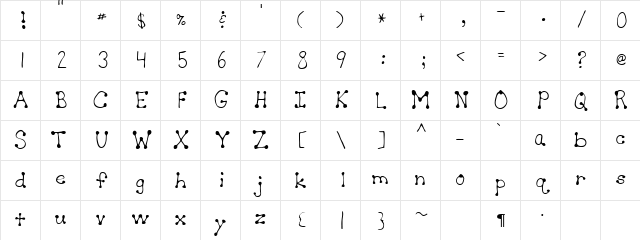
CurlyQ Regular
Design Context for CurlyQ
CurlyQ is a composed and adaptable typeface that performs quietly and consistently across a wide range of design contexts.